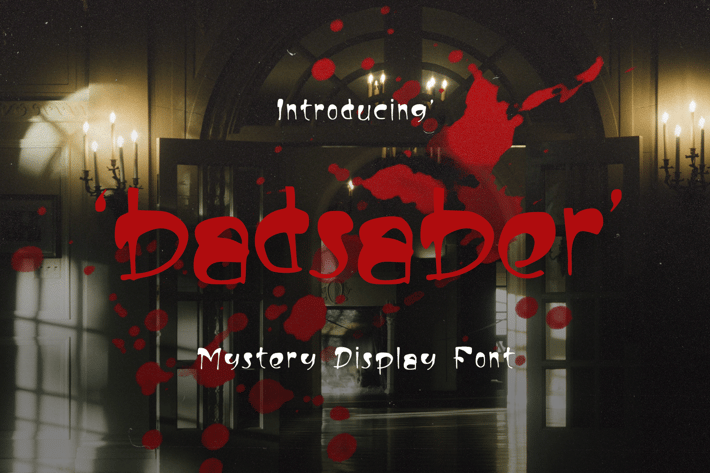
Badsaber Mystery Display Font
Badsaber Mystery Display Font, is our new font and suitable for mockup or any work.
Great for
Sticker, Invitation Card, Brochure, etc.